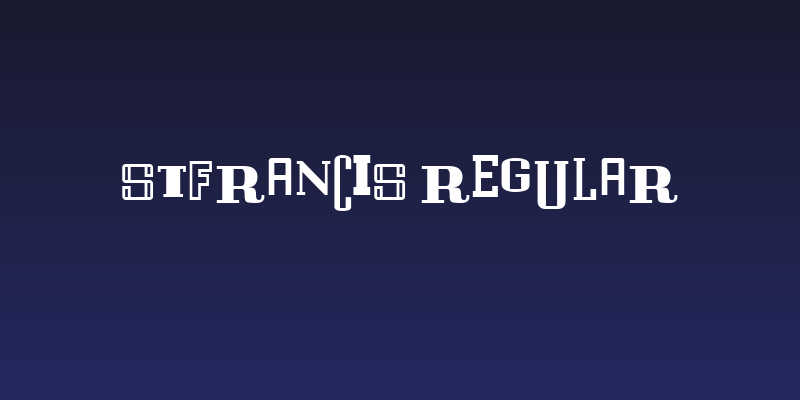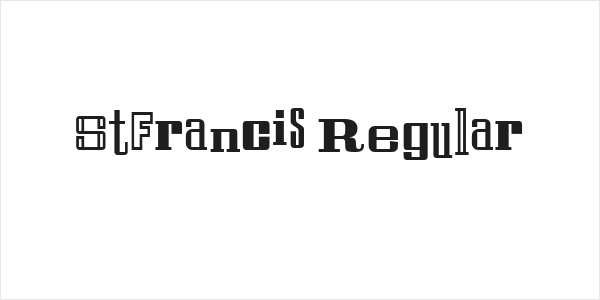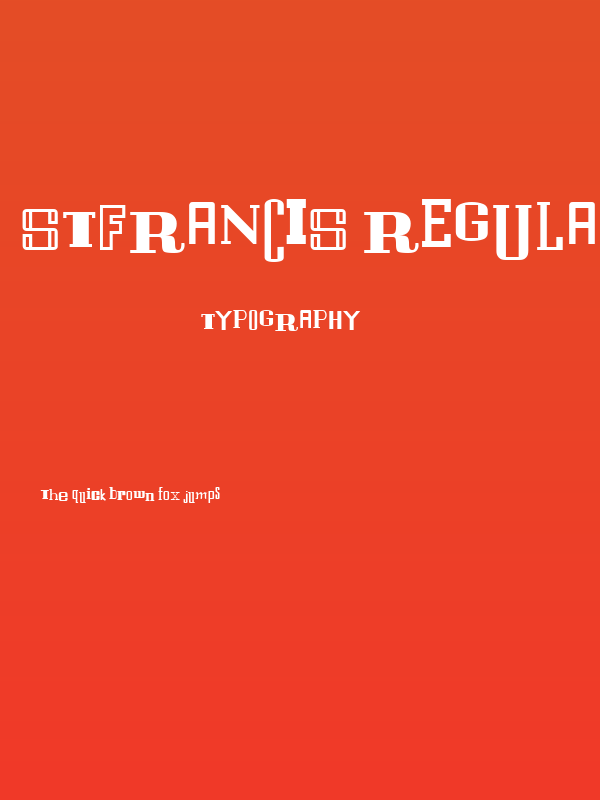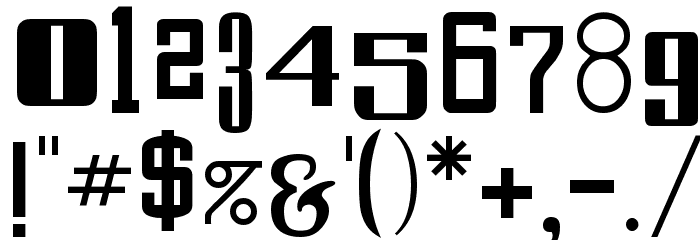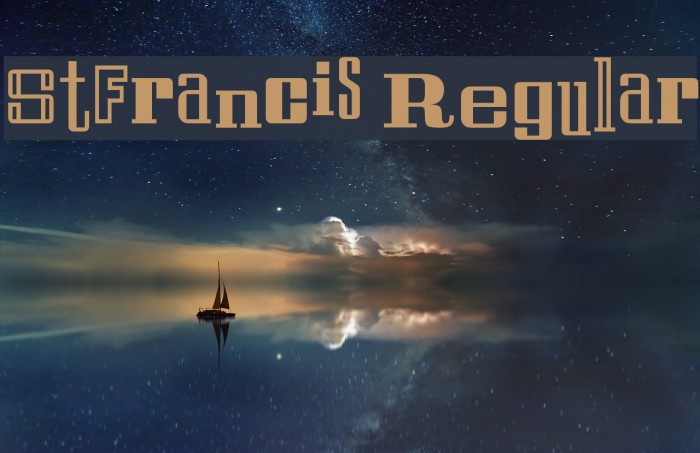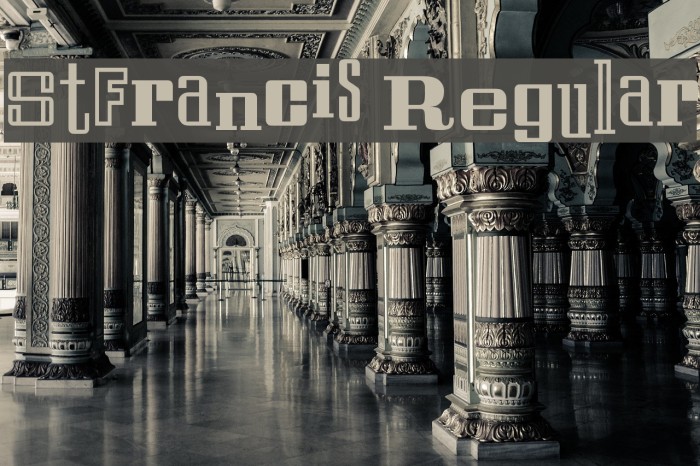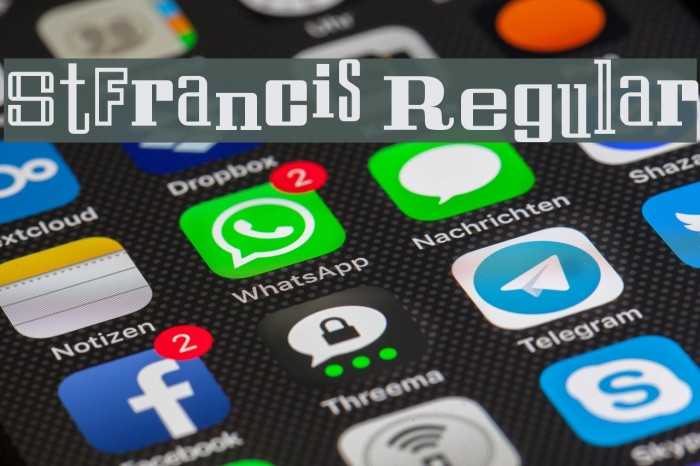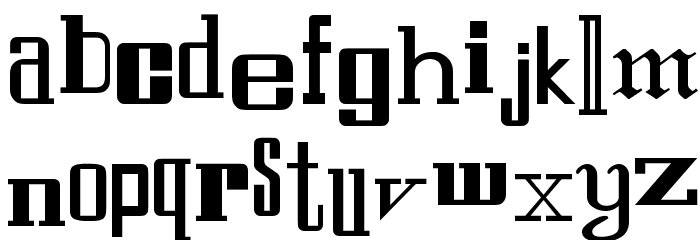
StFrancis Regular Font
StFrancis Regular Description
This font is a bold and eclectic display typeface that combines elements of both modern and vintage styles. It features a mix of thick and thin strokes, with some characters incorporating unique decorative elements such as serifs and flourishes. The uppercase letters are particularly striking, with a variety of styles ranging from solid and blocky to more intricate and ornate designs. The lowercase letters maintain a consistent style, offering a balance between readability and decorative flair. Numbers and special characters are bold and distinctive, making them suitable for attention-grabbing designs.
| Overall Style | Modern, Vintage |
| Proposed Projects | Ideal for posters, branding, and any project needing a bold, eye-catching typeface. |